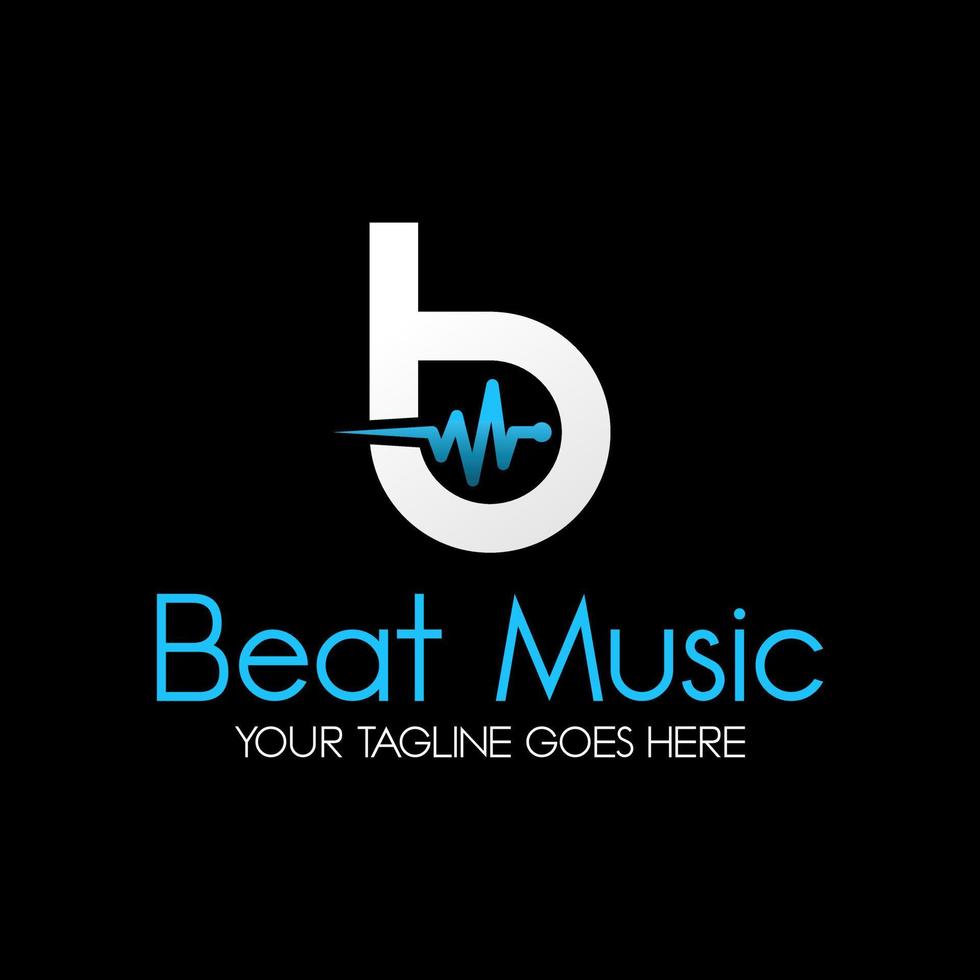
Simple letter word B font with addition rhythm or trand image graphic icon logo design abstract concept vector stock. Can be used as a symbol associated with initial or music Pro Vector